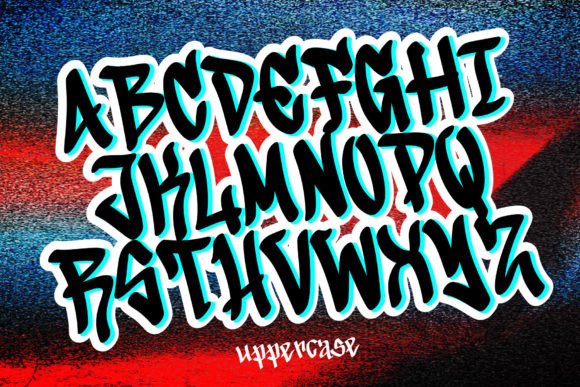
Noise Font
Noise is a font that expresses a packed graffiti style. Everything written in this font has an urban and street art vibe. This font is great for designs like t-shirts, sportswear, logos, advertisements, apparel, and more.